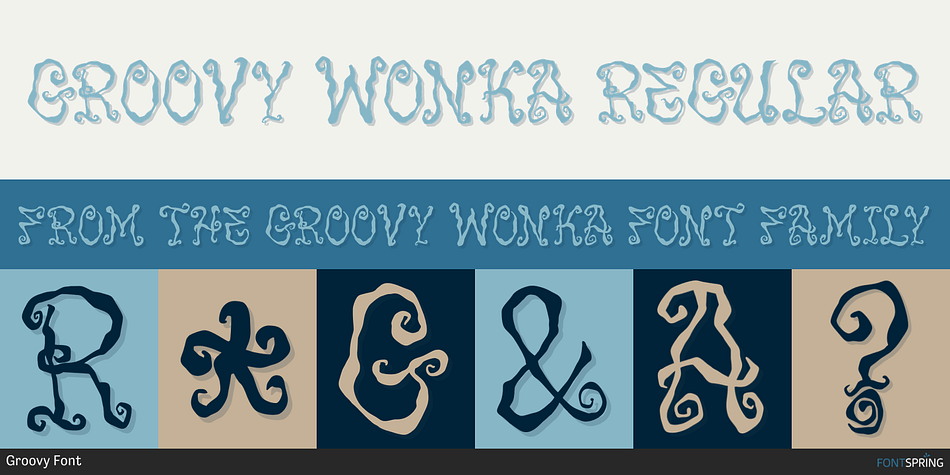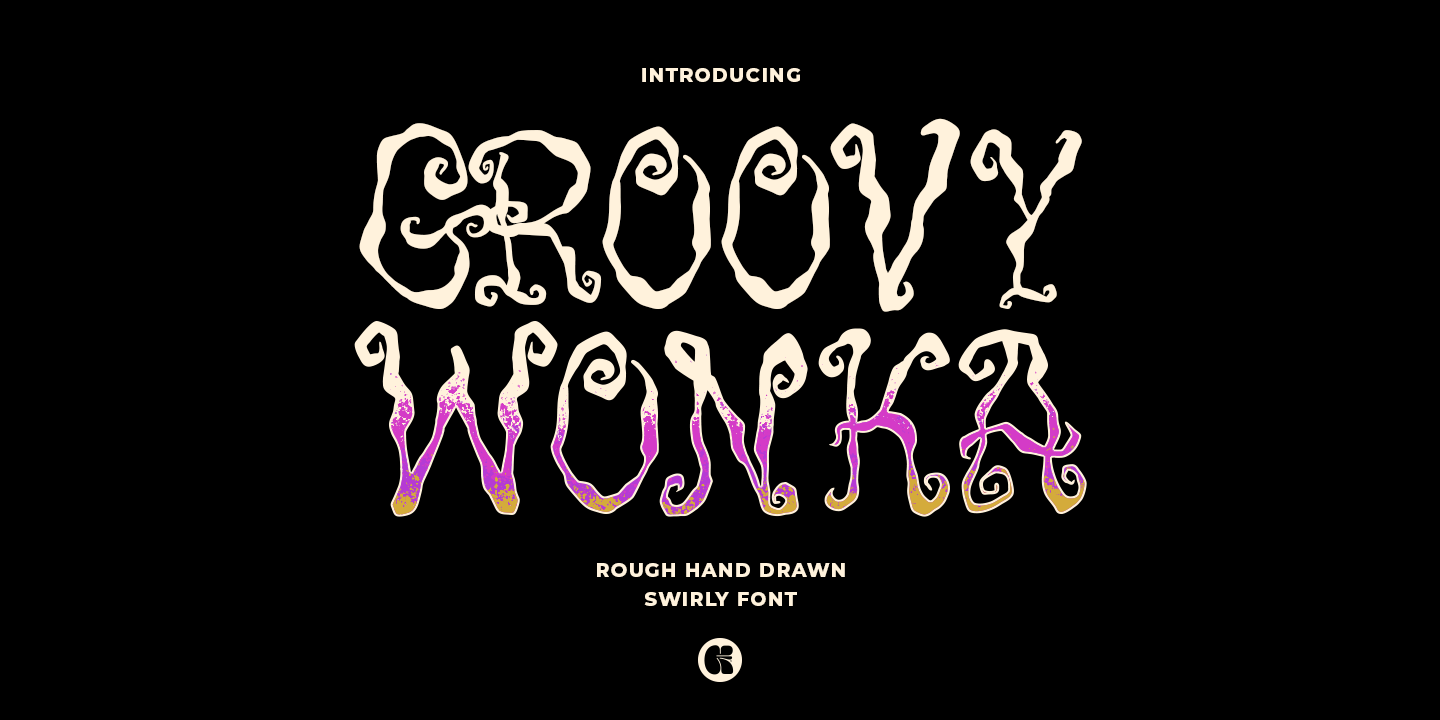
GROOVY WONKA REGULAR
Groovy Wonka is a display sans font family published by Groovy Font.
Groovy Wonka is a rough, hand-drawn, swirly font designed specifically for Halloween-themed design projects.
Its unique style and playful elements make it perfect for adding a spooky and fun vibe to any design.
- Uppercase, Lowercase, Numeral, Punctuation & Multilingual.